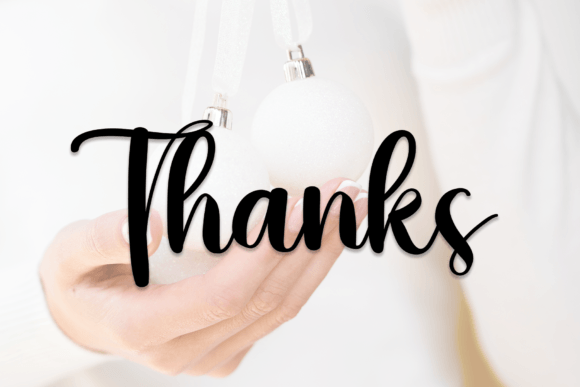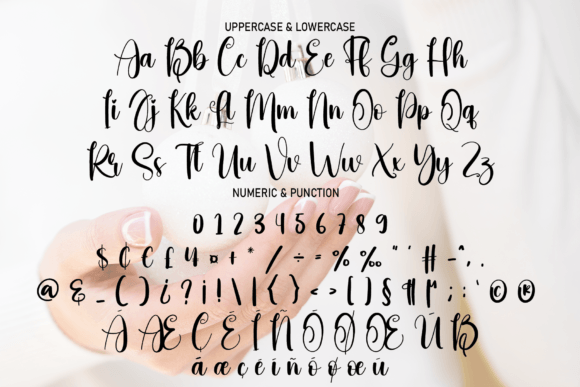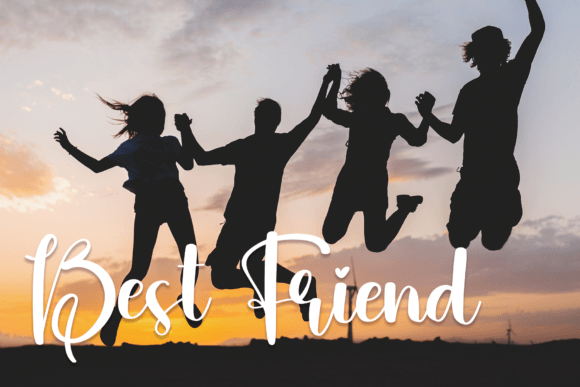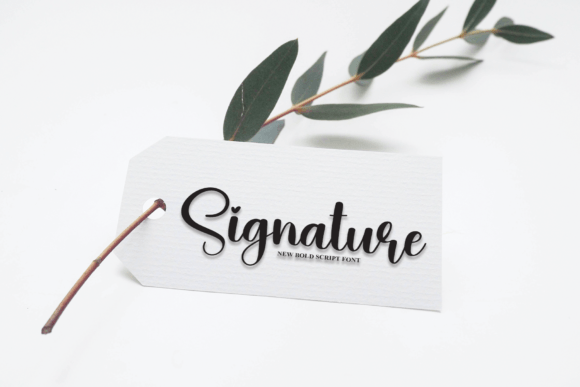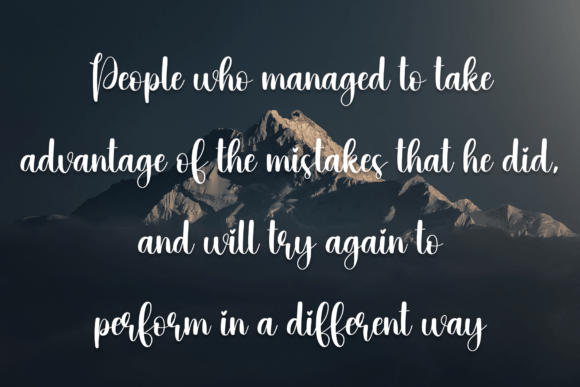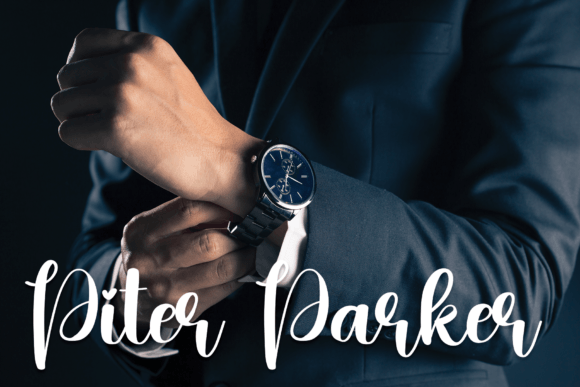
Discover the Charm of Bauble Font: Elevate Your Designs with a Touch of Elegance
Are you on the hunt for a font that embodies the perfect blend of classic sophistication and modern flair? Look no further than the Bauble Font. This cool and neat handwritten script font is making waves in the design community, and for good reason. Bauble maintains its classy calligraphic influences while feeling contemporary and fresh, making it an ideal choice for designers and crafters looking to bring their projects to the highest levels.
The Allure of Bauble Font
Bauble Font is a true showstopper, with its elegant and fluid strokes that dance across the page. This beautiful script font is perfect for adding a touch of sophistication to any design, from wedding invitations and branding materials to packaging and digital media. The font’s unique blend of traditional calligraphy and modern style makes it versatile and adaptable, ensuring that it will complement a wide range of design aesthetics.
What Makes Bauble Font Stand Out?
- Classy Calligraphic Influences: Bauble Font boasts a rich, calligraphic heritage, with intricate strokes and flourishes that evoke the elegance of traditional handwriting.
- Contemporary and Fresh: Despite its classic roots, Bauble Font feels remarkably modern and fresh, making it perfect for designers looking to create unique and eye-catching designs.
- Versatile: Bauble Font is incredibly versatile, and can be used for a wide range of design applications, from digital media to print materials.
- Easy to Read: Despite its ornate nature, Bauble Font is remarkably easy to read, making it perfect for use in body text, headings, and titles.
Bauble Font is a dream come true for designers and crafters looking to add a touch of elegance to their work. Whether you’re creating custom wedding invitations, designing branding materials for a client, or crafting unique digital media, Bauble Font is the perfect choice. Its unique blend of classic and modern style makes it an excellent addition to any design toolkit.
Tips for Using Bauble Font
- Pair with Bold Fonts: Bauble Font pairs beautifully with bold, sans-serif fonts, creating a striking contrast that’s perfect for headings and titles.
- Use for Headings and Titles: Bauble Font is perfect for use in headings and titles, where its elegant strokes and flourishes can really shine.
- Experiment with Colors: Bauble Font looks stunning in a range of colors, from rich metallics to soft pastels. Experiment with different colors to find the perfect look for your design.
If you’re looking for a font that will elevate your designs to the highest levels, look no further than Bauble Font. With its perfect blend of classic sophistication and modern flair, Bauble Font is the perfect choice for designers and crafters looking to create unique and eye-catching designs. So why wait? Fall in love with Bauble Font today, and discover a world of creative possibilities at your fingertips.